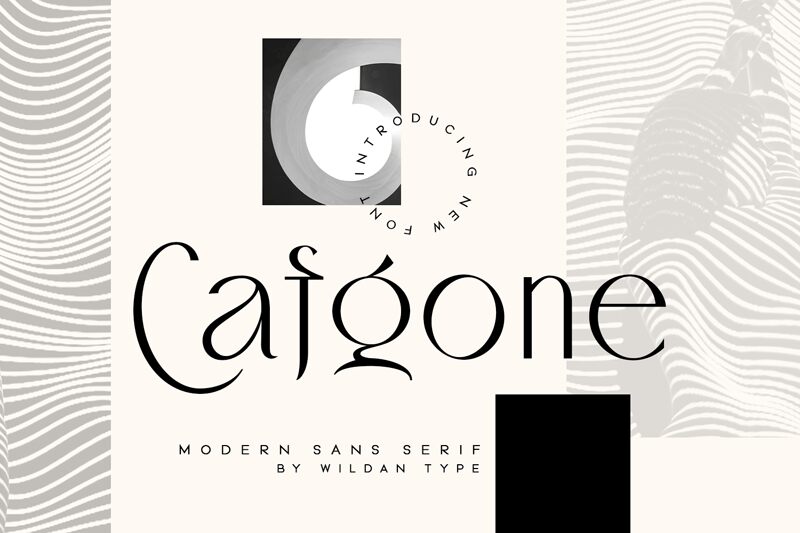
Cafgone Oblique
Cafgone Oblique, a captivating sans-serif font crafted by Wildan Type, exudes a refined elegance with its sleek, modern lines and distinctive slant. The harmonious balance of its curves and sharp edges creates a visually striking typeface that evokes a sense of contemporary sophistication. Its clean, legible appearance lends itself seamlessly to a variety of design applications, making it an adaptable choice for discerning projects.
The Cafgone font family's versatility and timeless appeal make it a compelling option for designers seeking to elevate their work with a touch of sophistication. Its versatility allows it to shine in various contexts, from corporate branding and editorial layouts to packaging design and digital interfaces. The Cafgone Oblique's distinctive character and refined aesthetic make it a compelling choice for designers who wish to add a touch of style and sophistication to their creations.